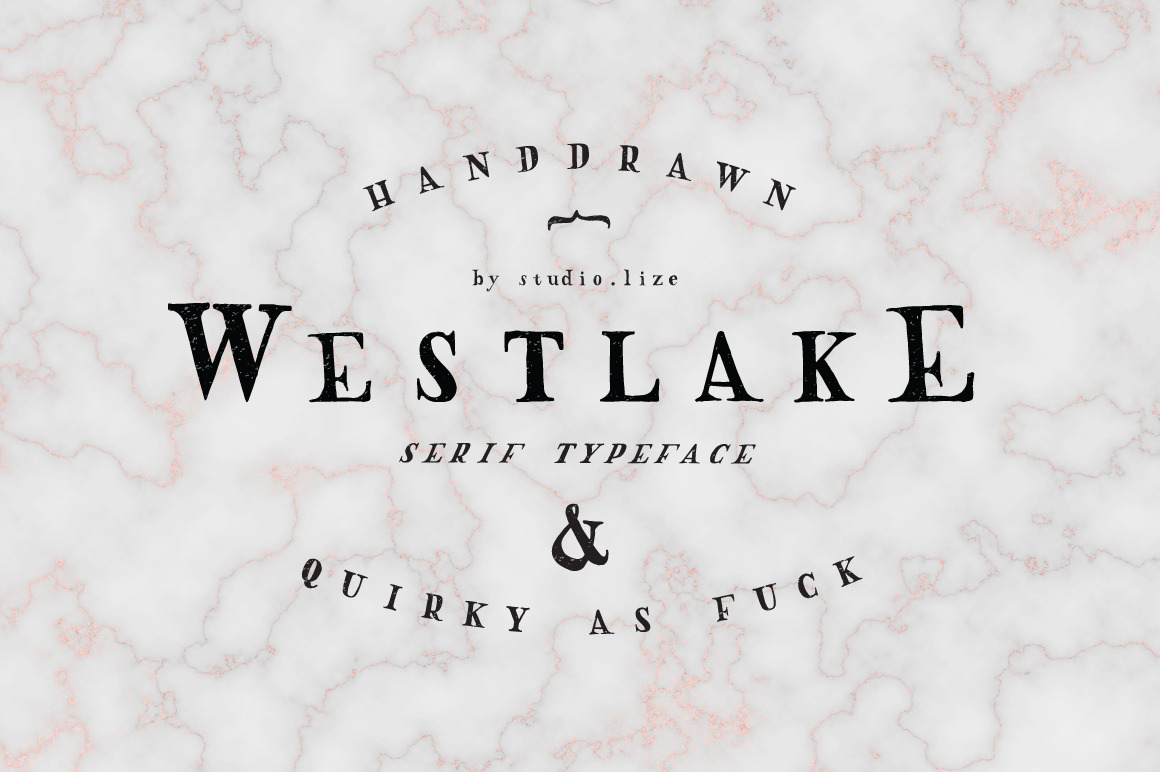
Westlake Hand Drawn Font
Westlake is a quirky, hand drawn typeface perfect for Logotypes, Apparel Design, Posters and much more. This typeface is perfect for making statements and giving your brand/design the authenticity it deserves.